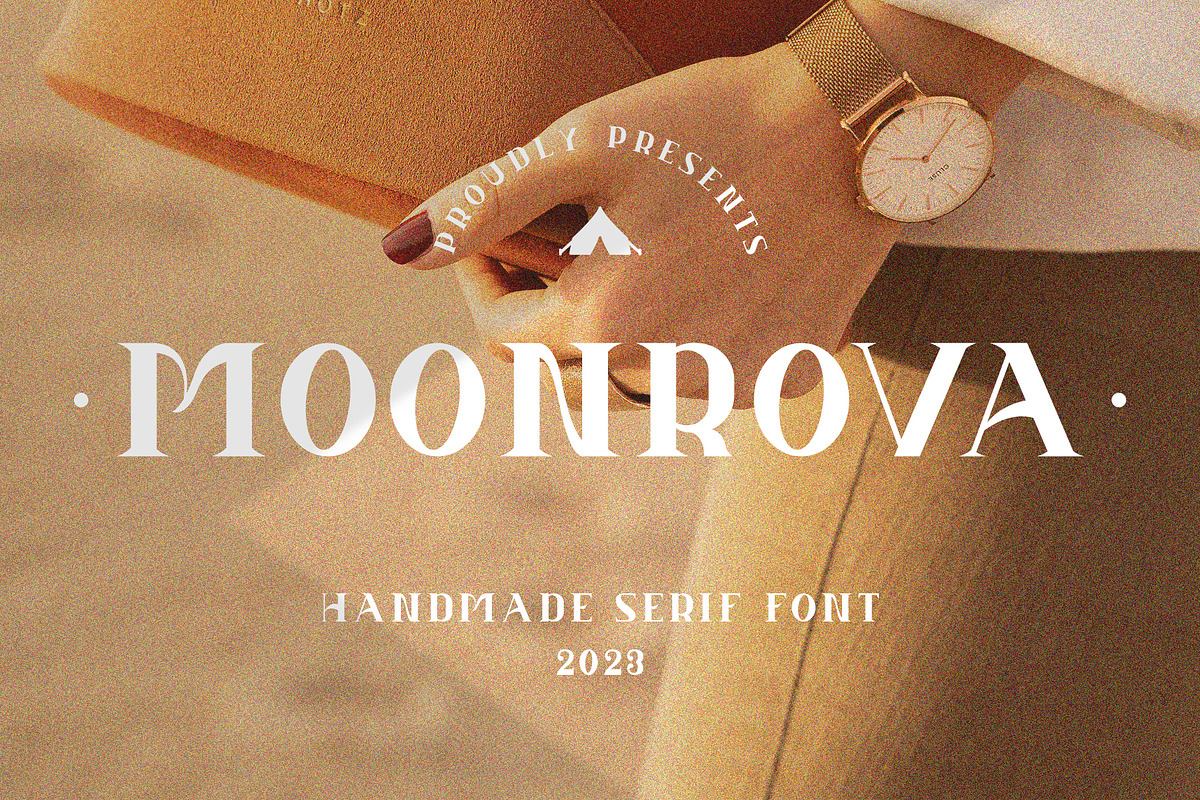
Moonrova Handmade Serif Font Free Download
Moonrova – Handmade Serif Font Free Download is a charming and organic typeface that combines the structure of a classic serif with the warmth of hand-drawn design. With its subtle imperfections and creative personality, Moonrova is perfect for branding, packaging, book covers, wedding stationery, and lifestyle blogs.
This font offers a handcrafted feel that adds authenticity and individuality to your designs. Whether you're working on a rustic brand, an artisan product label, or a heartfelt quote graphic, Moonrova brings a cozy, approachable vibe to your typography.